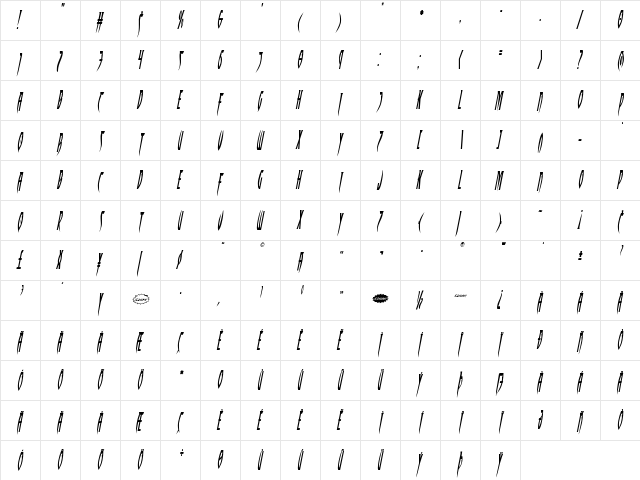
Inhumanity Condensed Italic Font Preview
Design Context for Inhumanity Condensed Italic Typeface
Inhumanity Condensed Italic is a composed and adaptable typeface that performs quietly and consistently across a wide range of design contexts. The dynamic lean of this cut emphasises speed and emphasis in any layout. The condensed width makes it efficient for tight spaces without sacrificing legibility.
Pro Tip: Use Inhumanity Condensed Italic for emphasis, pull quotes, and subheadings where its slanted energy can add rhythm to the layout.